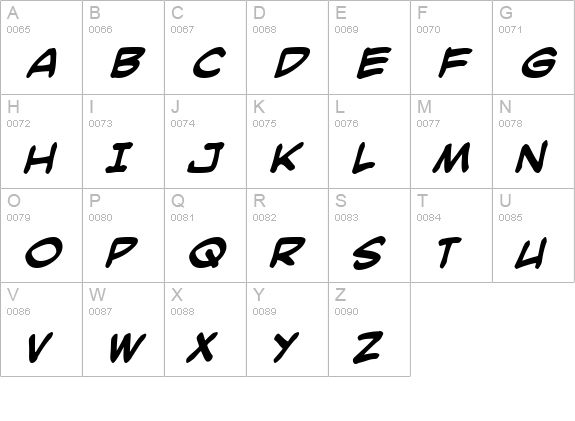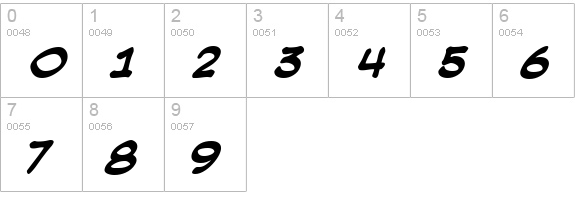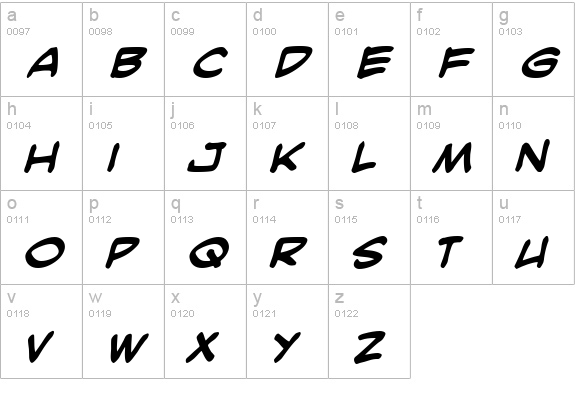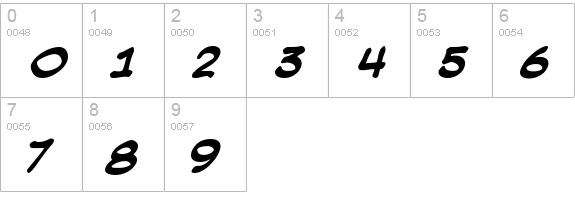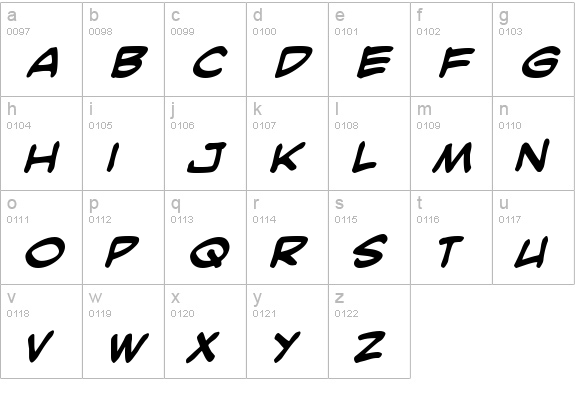
SmackAttack BB Bold is a strong, high-contrast variant in the SmackAttack typeface family \xE2\x80\x94 well suited to headlines, attention-grabbing titles, and strong calls-to-action.
SmackAttack BB Bold font is a bold and striking typeface that commands attention with its strong presence. This font exudes confidence and power, making it perfect for headlines, titles, and other display purposes. The bold letters are designed with a unique style that adds a touch of creativity to any design project. What's even better is that SmackAttack BB Bold font is available for free download at FontsMarket.com. This means you can easily access this versatile and eye-catching font to enhance your projects without any cost. Don't miss out on the opportunity to add this powerful font to your collection and make a bold statement in your designs.